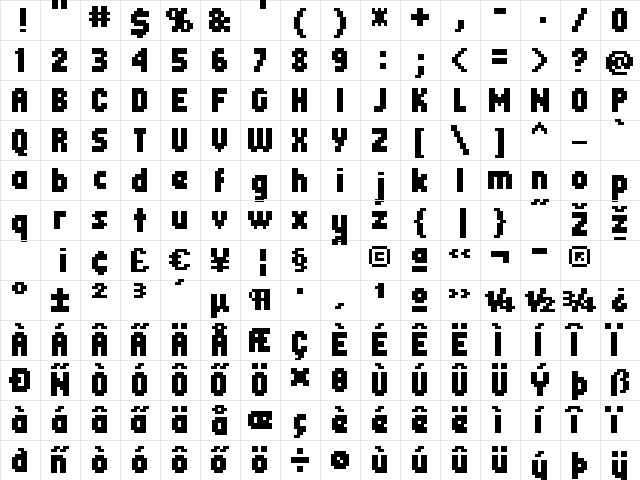
header 08_67 Regular
DesignerCraig Kroeger
Design Context for header 08_67 Typeface
header 08_67 is a composed and adaptable typeface that performs quietly and consistently across a wide range of design contexts.